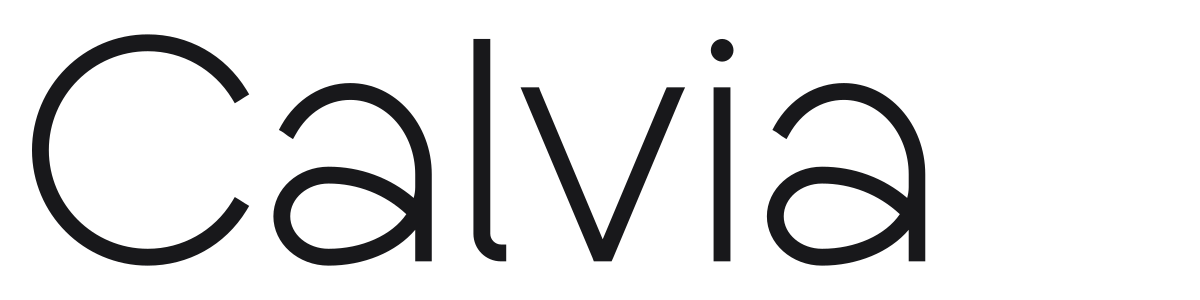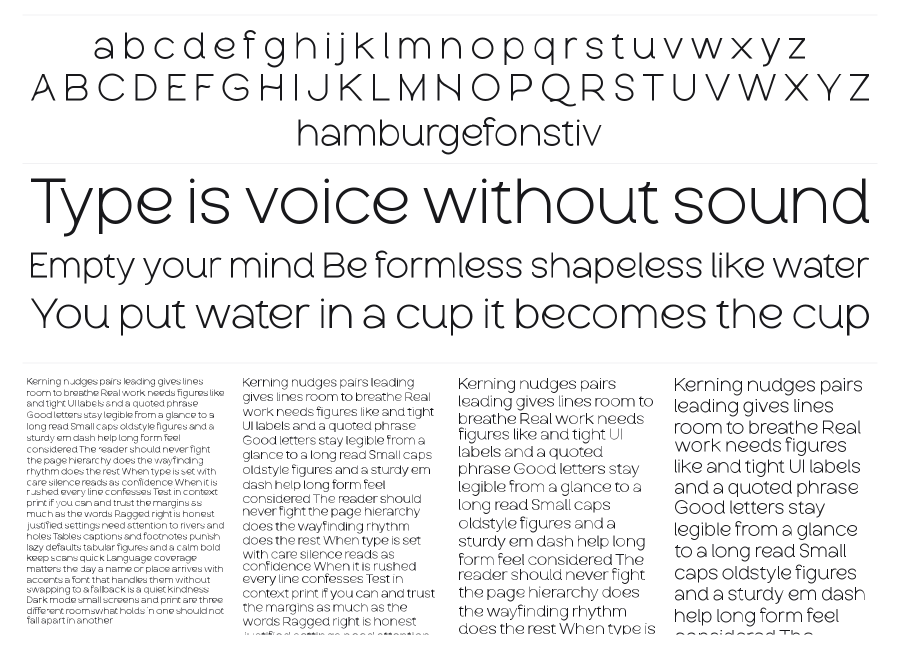
Calvia
Calvia is a light geometric sans-serif built on soft circular forms and near-monoweight strokes. Wide proportions and open apertures give it a breathable, refined quality that feels at home in contemporary branding and editorial design. The light weight adds an elegant restraint without tipping into fragility.